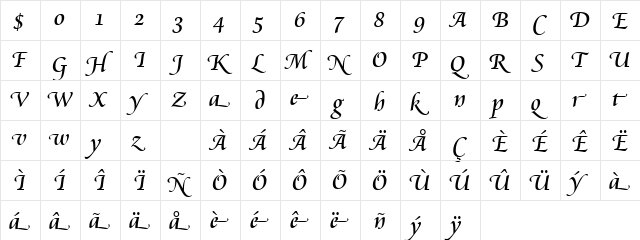
Cataneo Swash BT Regular Swash
Design Context for Cataneo Swash BT Typeface
Cataneo Swash BT brings a calligraphic fluidity to the page — its connecting strokes and expressive curves give it an unmistakably human quality.
Font Pairing: Combine Cataneo Swash BT with a simple geometric sans for maximum contrast — the tension between flowing curves and clean structure is a classic typographic pairing.
Pro Tip: Pair Cataneo Swash BT with a clean sans-serif for supporting text. The contrast between fluid script and geometric structure creates an elegant typographic hierarchy.